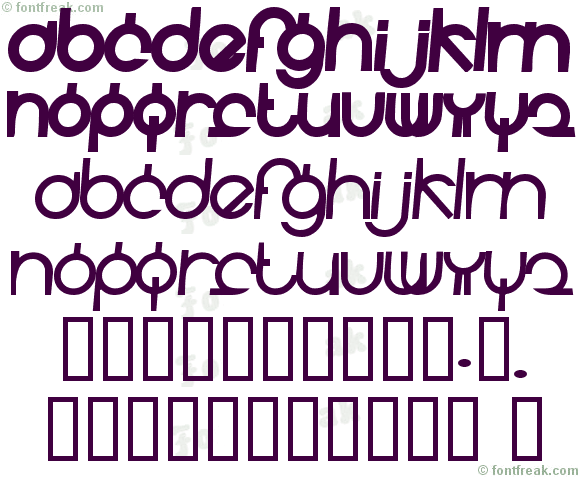
Fidelle
Fidelle by Font-a-licious Fonts is an elegant display font that seamlessly blends sophistication with a touch of whimsy. Released in 1998, this freeware font showcases a distinctive design characterized by its unique letterforms and playful curves. As a display typeface, Fidelle stands out with its moderate stroke weight and gentle contrast, making it visually striking without sacrificing readability. The spacing between characters is thoughtfully executed, allowing for clarity while maintaining a vibrant flair.
This font is perfect for a variety of creative applications. It works exceptionally well for wedding invitations, where its charming style can add a personal touch to special occasions. Additionally, Fidelle is an excellent choice for movie posters, where its captivating design can draw attention and convey the film's theme effectively. Restaurant menus can benefit from its stylish appearance, making dishes feel more gourmet and appealing. Furthermore, content creators looking to enhance their branding can utilize Fidelle in social media graphics to communicate their unique aesthetic.
Targeted towards graphic designers, small business owners, and content creators, Fidelle provides a versatile tool for those seeking to elevate their visual communications. Its playful yet refined character allows it to adapt to various projects, ensuring that users can create eye-catching designs that resonate with their audience.
What sets Fidelle apart from other fonts is its ability to balance elegance with a whimsical charm, making it a delightful choice for both formal and informal contexts. With the Fidelle font free download, you can easily incorporate this unique typeface into your projects, enhancing your designs with its distinctive character and timeless appeal. Whether for personal or professional use, Fidelle is sure to make a lasting impression.